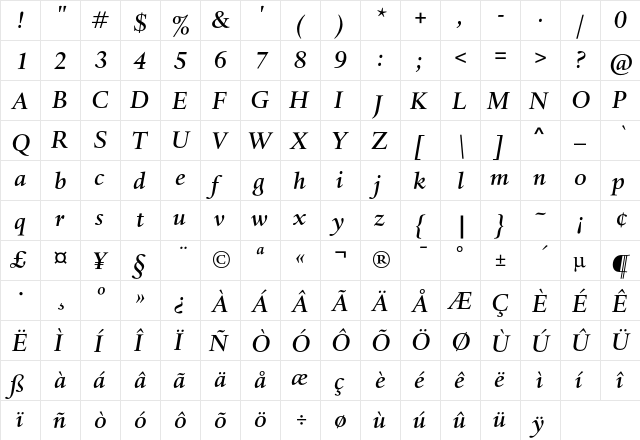
DTLHaarlemmerD MediumItalic
Design Context for DTLHaarlemmerD Typeface
DTLHaarlemmerD is a composed and adaptable typeface that performs quietly and consistently across a wide range of design contexts. Its italic angle brings a sense of urgency and motion to the letterforms.
Pro Tip: Try DTLHaarlemmerD for annotation and caption copy alongside an upright companion — the contrast in angle creates a dynamic but ordered typographic system.